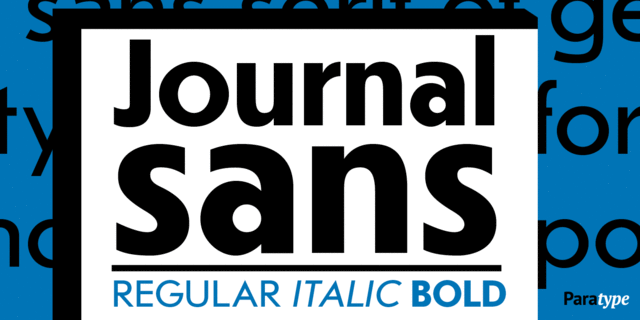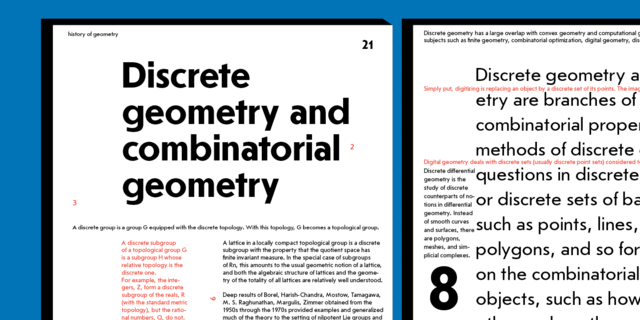
Journal Sans (3 fonts)
About Journal SansThe typeface was designed at the Polygraphmash type design bureau in 1940-56 (project headed by Anatoly Shchukin) based on Erbar-Grotesk typeface of Ludwig & Mayer company, 1929, by Jakob Erbar, and on Metro typeface of Mergenthaler Linotype, 1929, by William A. Dwiggins. A sans serif of geometric style. It’s a good option for text and display typography. In 2014 designer Olexiy Volochay made some corrections in original digital data and extended the character set. The family was rereleased at ParaType in 2014.
Features of font family Journal SansThe hit of the decade:
Hit of 1930s Hit of 1940s Hit of 1980s Similar to fonts from logos, games, movies:
Close to historical original:
Associations for font family Journal SansTypeface personality and character:
Soviet, clear, available, elementary, correct, flat, straight, simple, laconic, minimalistic, urban, strict, serious, sharp, solid, schematic, engineering, clean, accurate, convincing, motivating